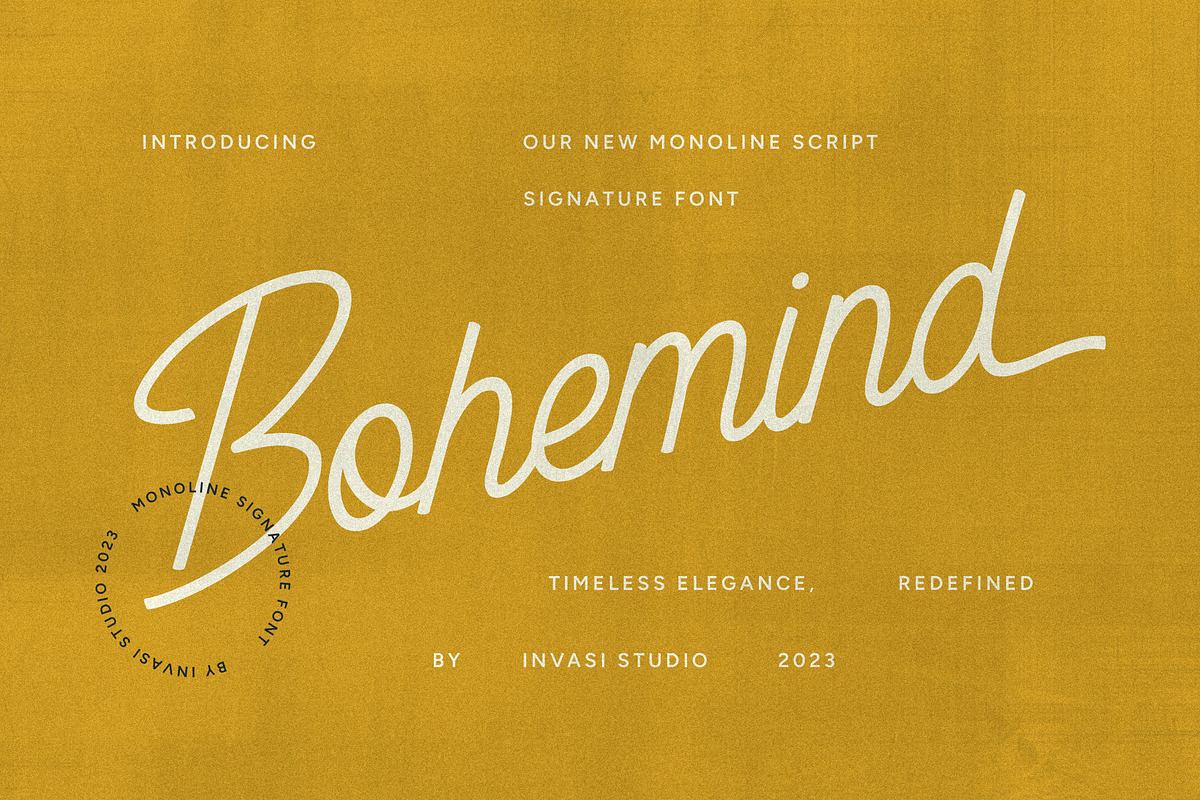
Bohemind - Monoline Signature Font Free Download
Bohemind - Monoline Signature Font Free Download is a sleek and stylish handwritten typeface that mimics the flow of natural ink with a modern twist. Its smooth monoline strokes and elegant curves make it perfect for logos, personal branding, social media posts, wedding stationery, and high-end product packaging.
With a balance of minimalism and sophistication, Bohemind captures the essence of a handwritten signature, giving your projects a personal, authentic feel. It's easy to read and pairs beautifully with both serif and sans-serif fonts for a clean, polished look.